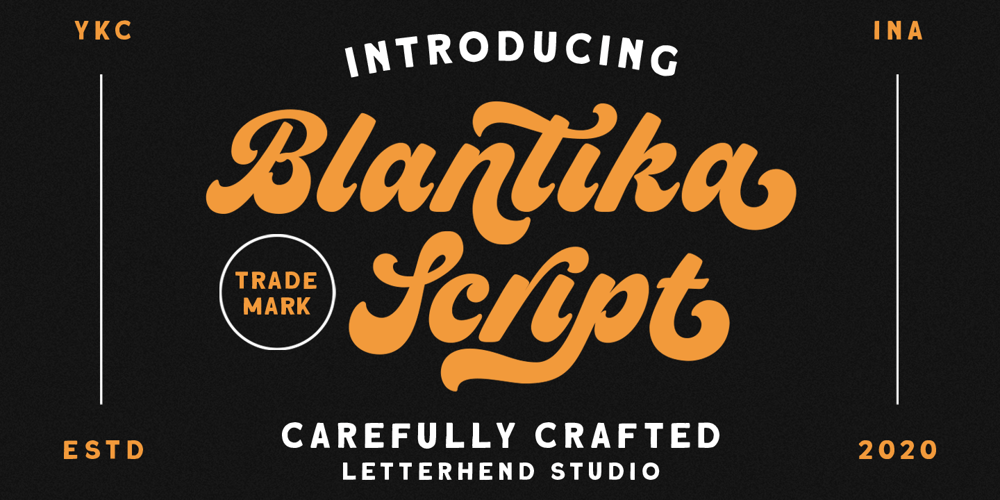
Blantika
Blantika font
Blantika Font Family was designed by Hendry Juanda and published by Letterhend. Blantika contains 1 styles and family package options. Introducing, Blantika Script – a bold script which is purposely made for logotype. This type of font perfectly made to be applied especially in logo, and the other various formal forms such as invitations, labels, logos, magazines, books, greeting / wedding cards, packaging, fashion, make up, stationery, novels, labels or any type of advertising purpose.Features : uppercase & lowercase numbers and punctuation multilingual alternates and ligatures PUA encoded We highly recommend using a program that supports OpenType features and Glyphs panels like many of Adobe apps and Corel Draw, so you can see and access all Glyph variations.